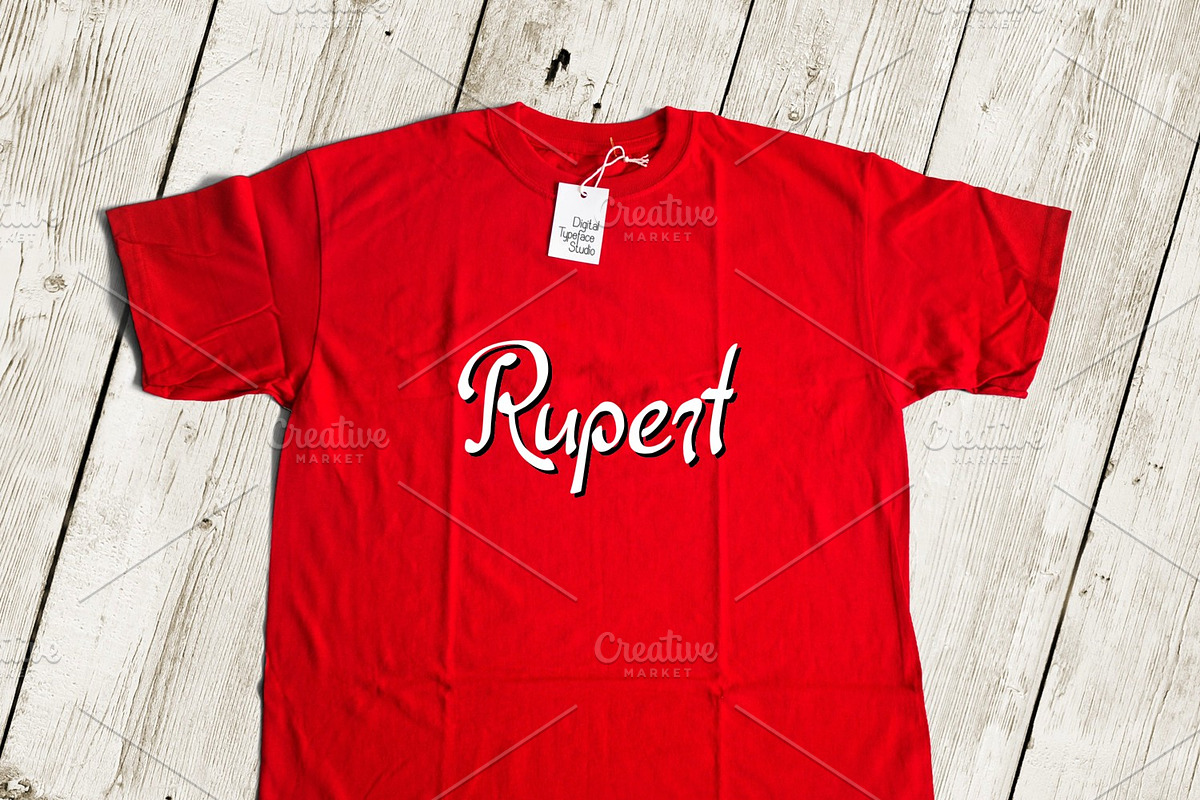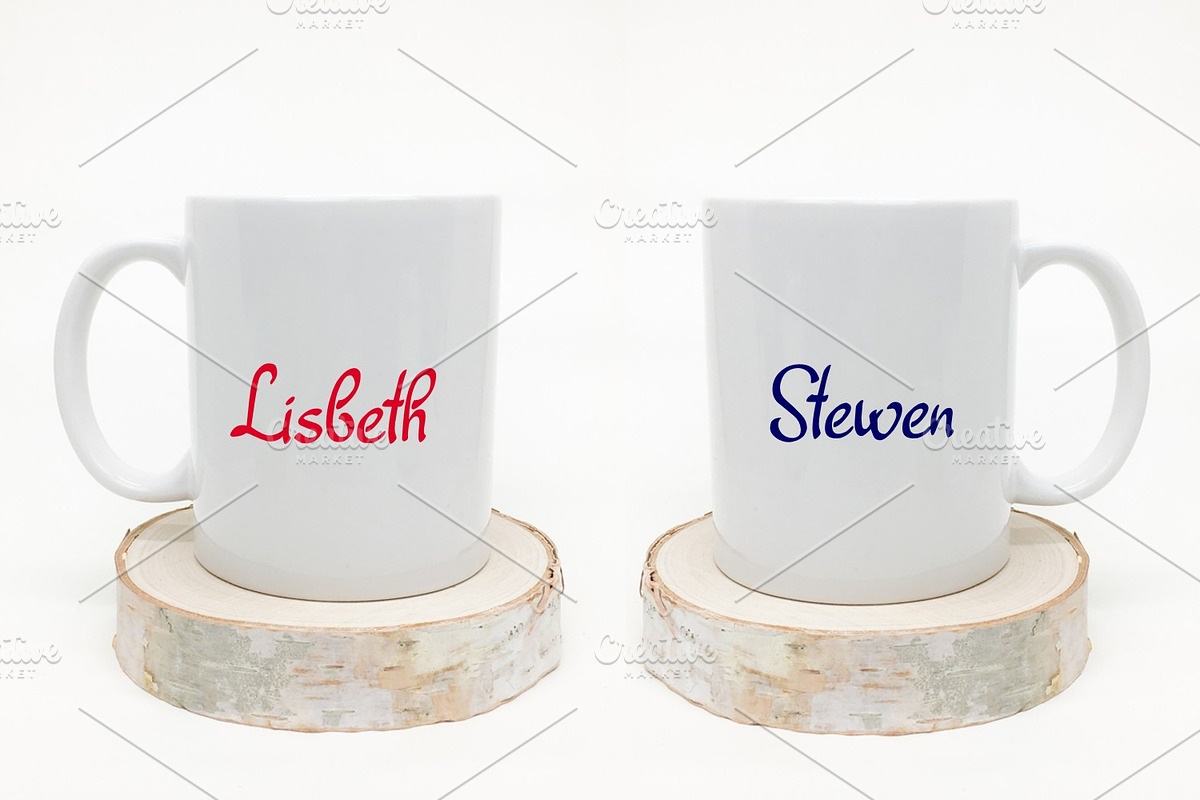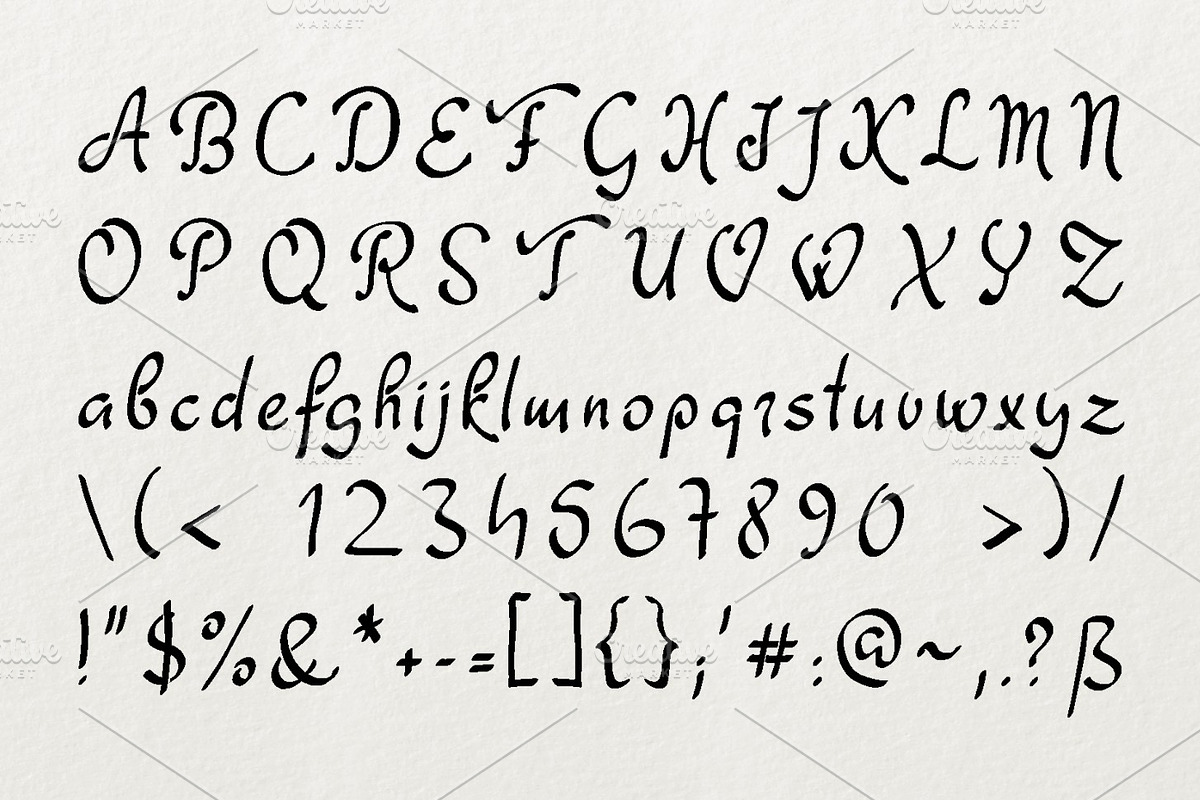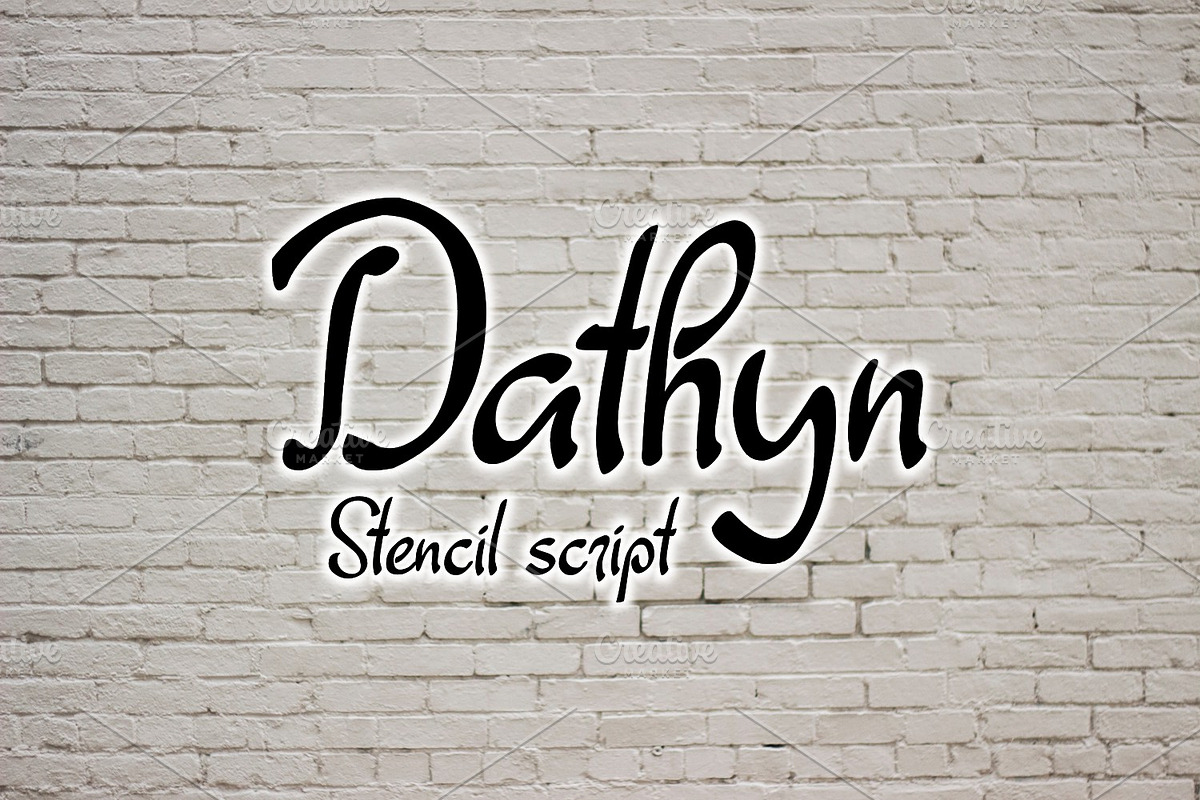
Dathyn
Dathyn is a unique and creative stencil script, without closed loops on the letters/numbers/flourishes! Download and use across a huge range of programs such as Adobe programs, Corel programs, Cricut and many others!
Why Dathyn is worth a look
Dathyn by Digital Typeface Studio fits naturally into Branding, posters, packaging, typography.